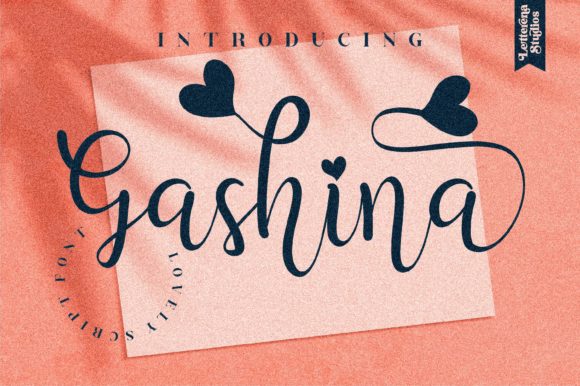
In a world saturated with digital monotony, embrace the artistry of Gashina Font, a captivating script font crafted by Letterena Studios. Let your creativity flow as you explore the boundless possibilities of this versatile font, seamlessly blending the charm of handwritten elegance with the precision of digital design.
Gashina Font is not merely a collection of characters; it's an invitation to embark on a journey of self-expression. With its two distinctive typefaces and an array of heart swashes, Gashina Font empowers you to add a touch of romance and allure to your projects, transforming them into masterpieces that resonate with emotion.
Unleash your imagination and let Gashina Font guide you through a myriad of creative endeavors. Whether you're designing logos, branding projects, homeware designs, product packaging, mugs, quotes, posters, shopping bags, t-shirts, book covers, name cards, invitation cards, greeting cards, labels, photography, watermarks, or any other project that demands a touch of elegance, Gashina Font is your perfect companion.
With its PUA encoding, Gashina Font ensures effortless access to a treasure trove of glyphs and swashes, allowing you to effortlessly infuse your designs with intricate details and flourishes. Open the door to endless possibilities and let your creativity flourish like never before.
Seize the opportunity to make a lasting impression, to leave an indelible mark on the hearts and minds of your audience. Gashina Font is the key to unlocking your creative potential, transforming your digital creations into works of art that captivate and inspire. Embrace the beauty of handwritten charm, elevate your projects to new heights, and let Gashina Font ignite the flame of your imagination.